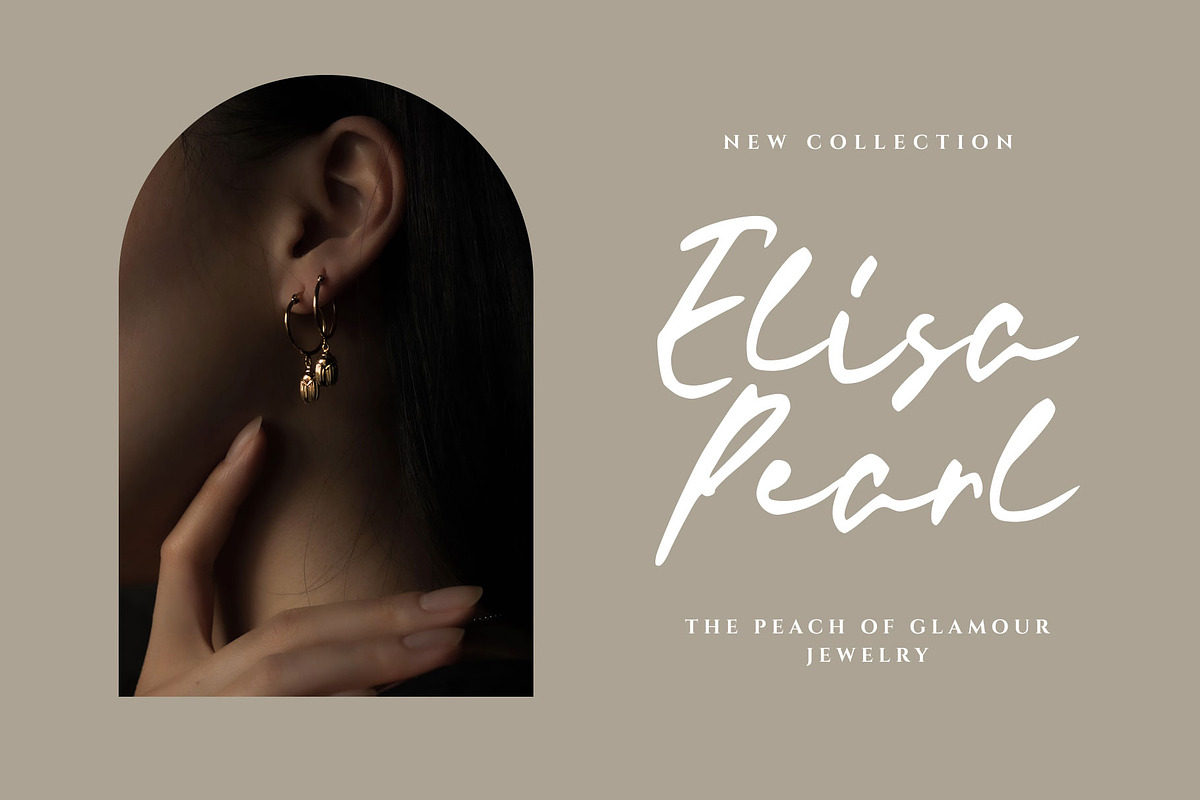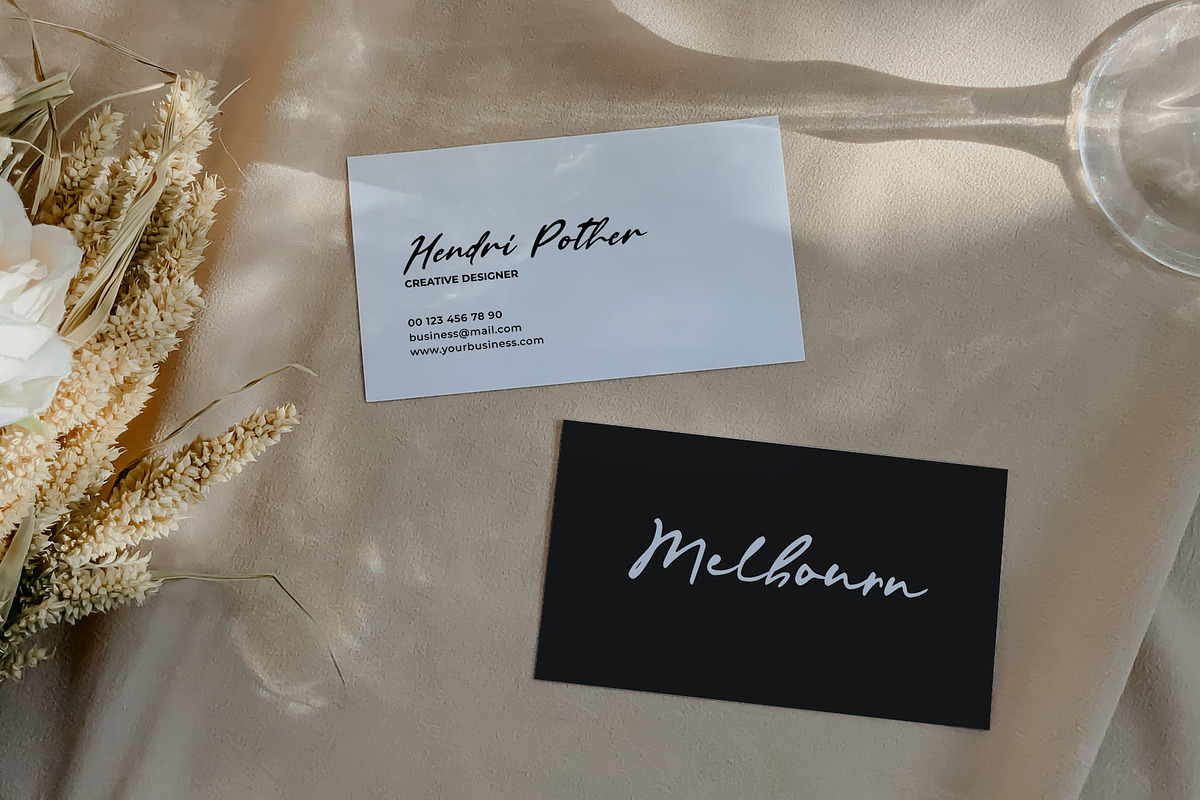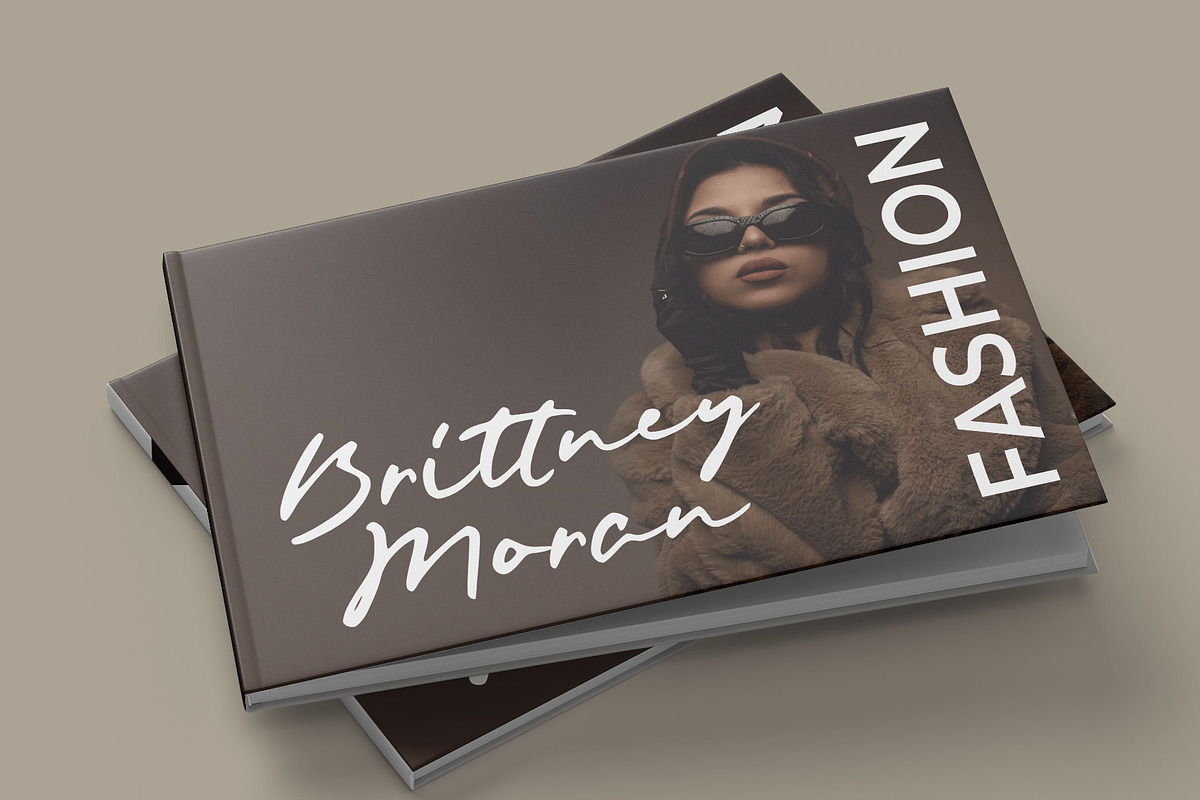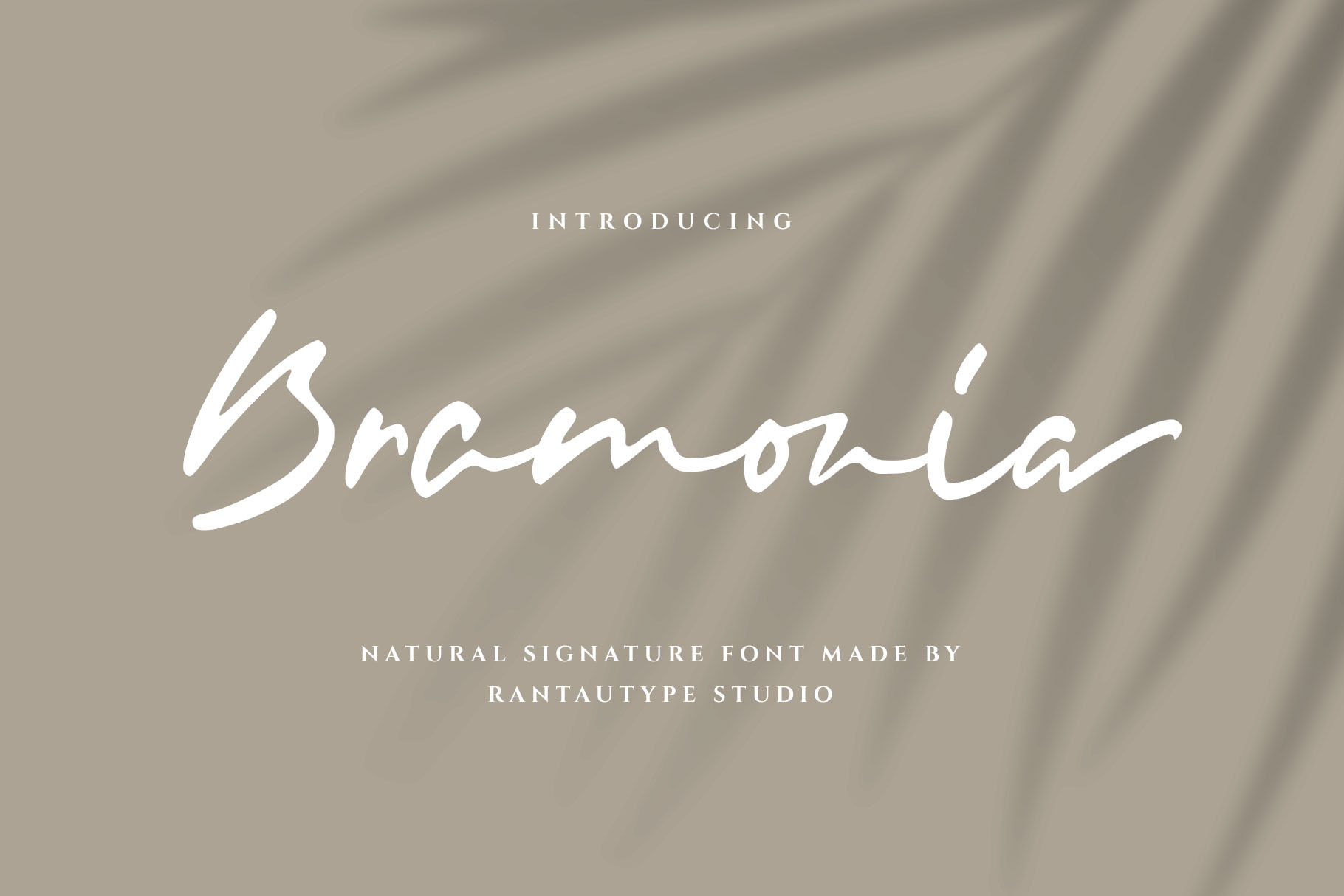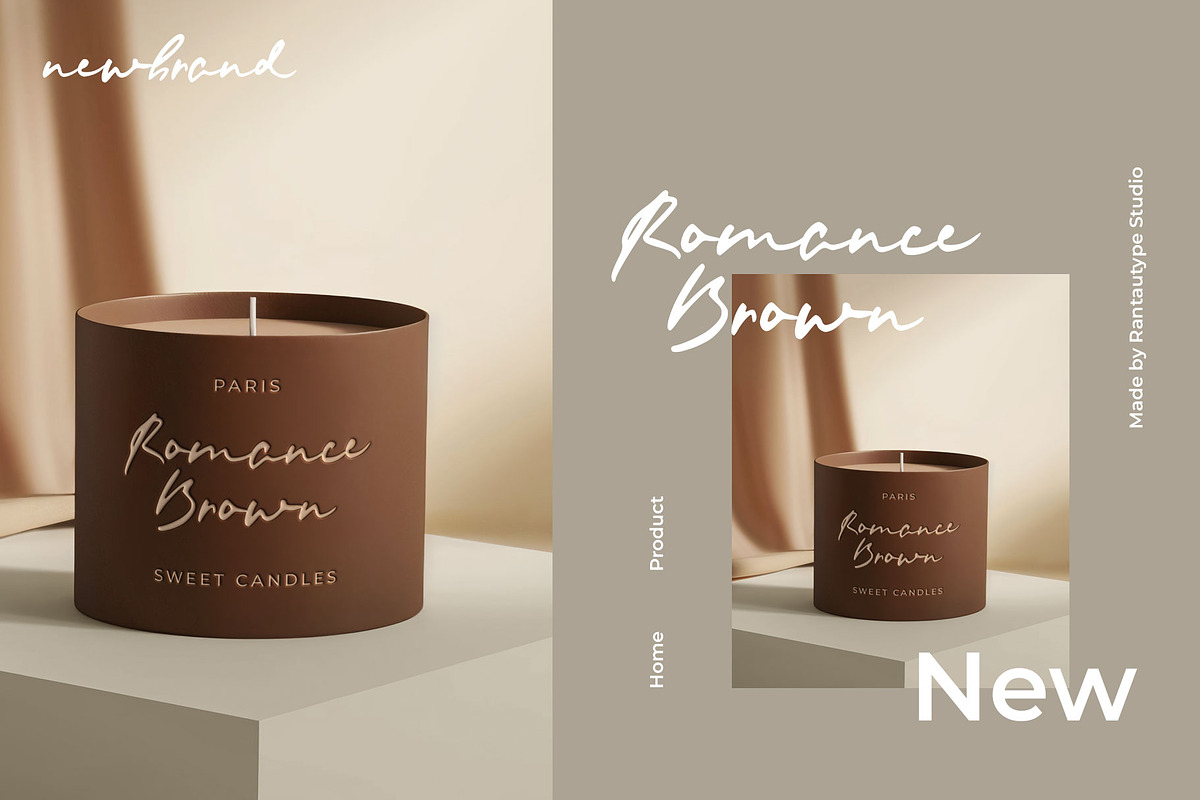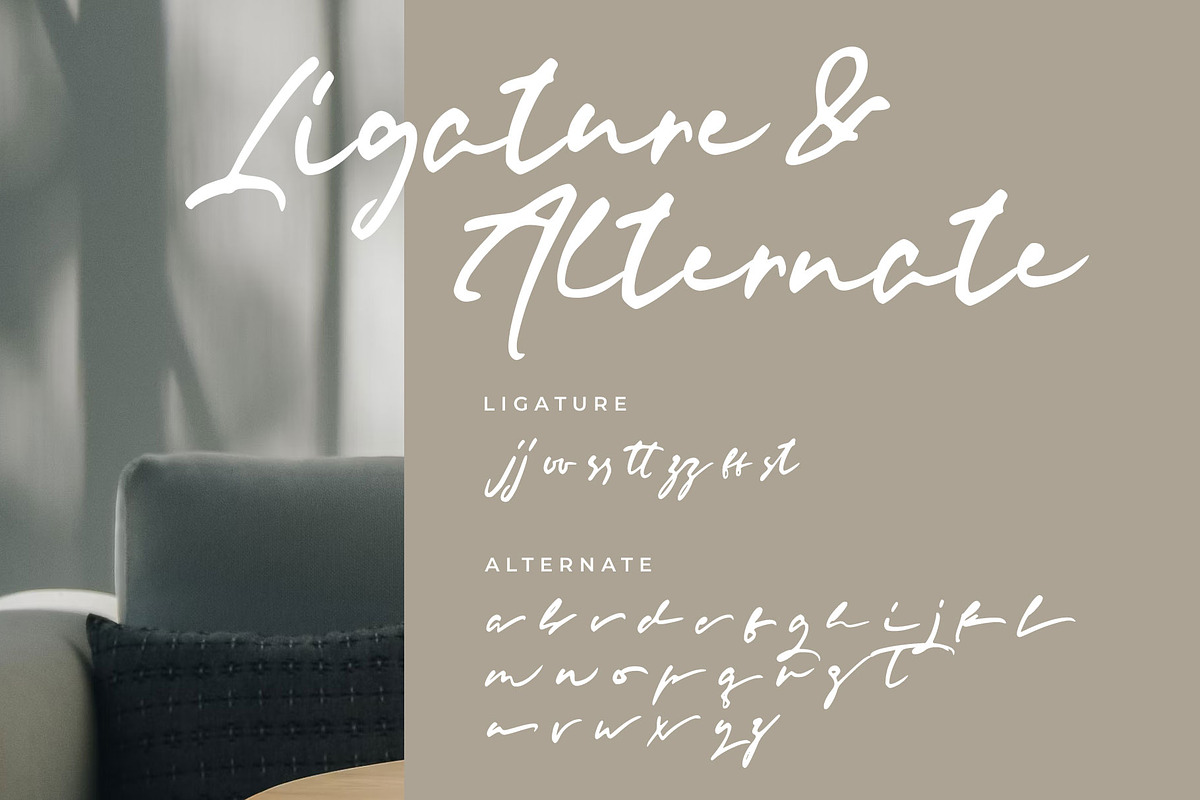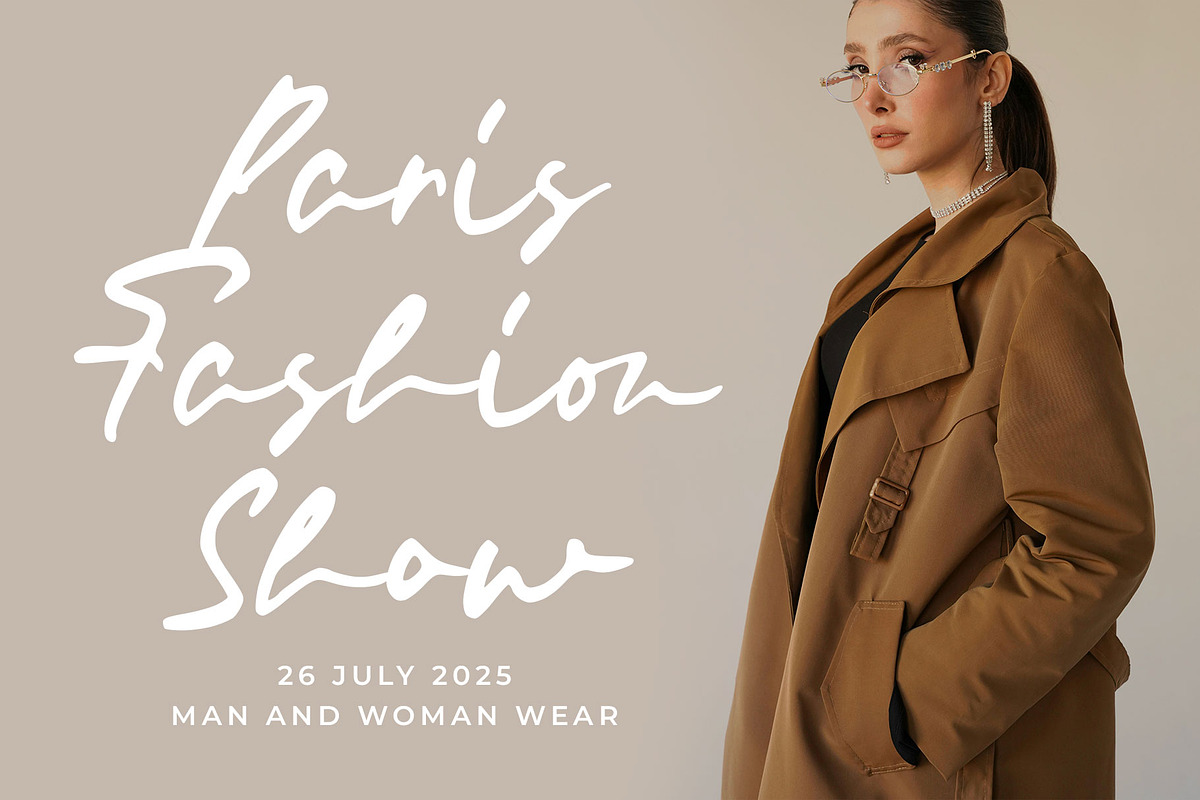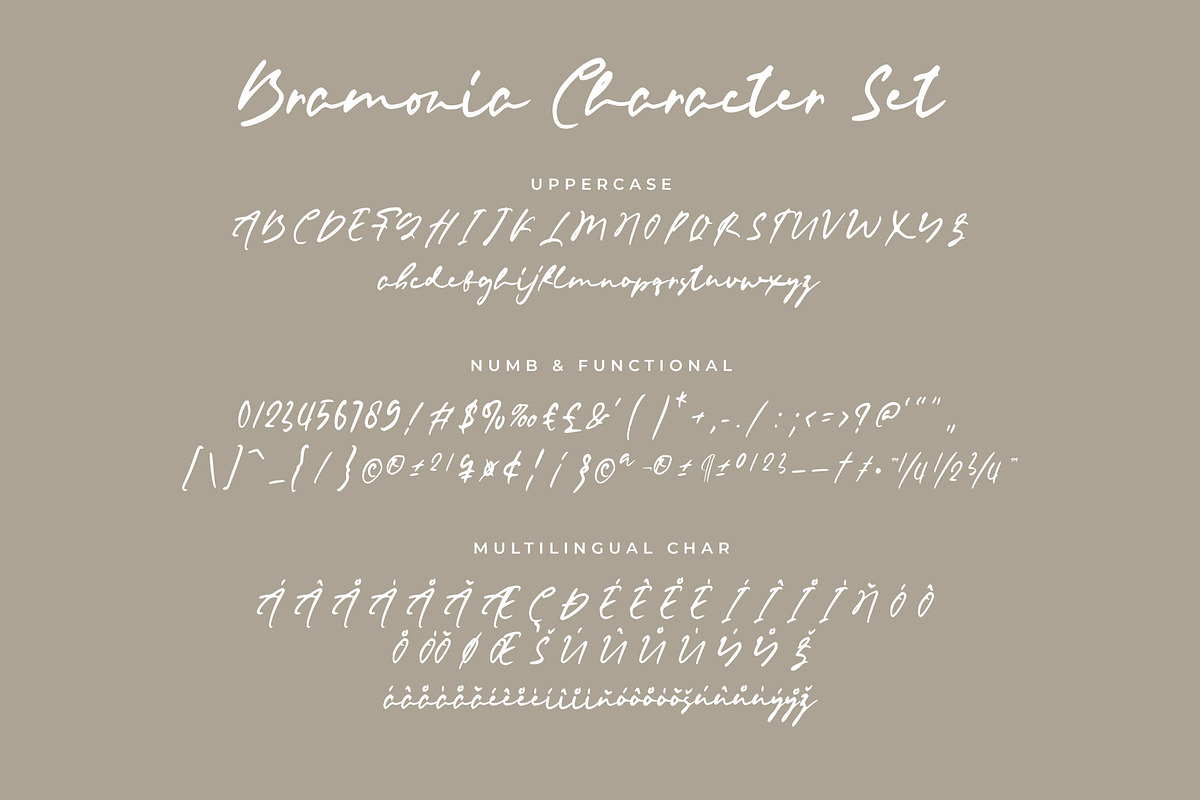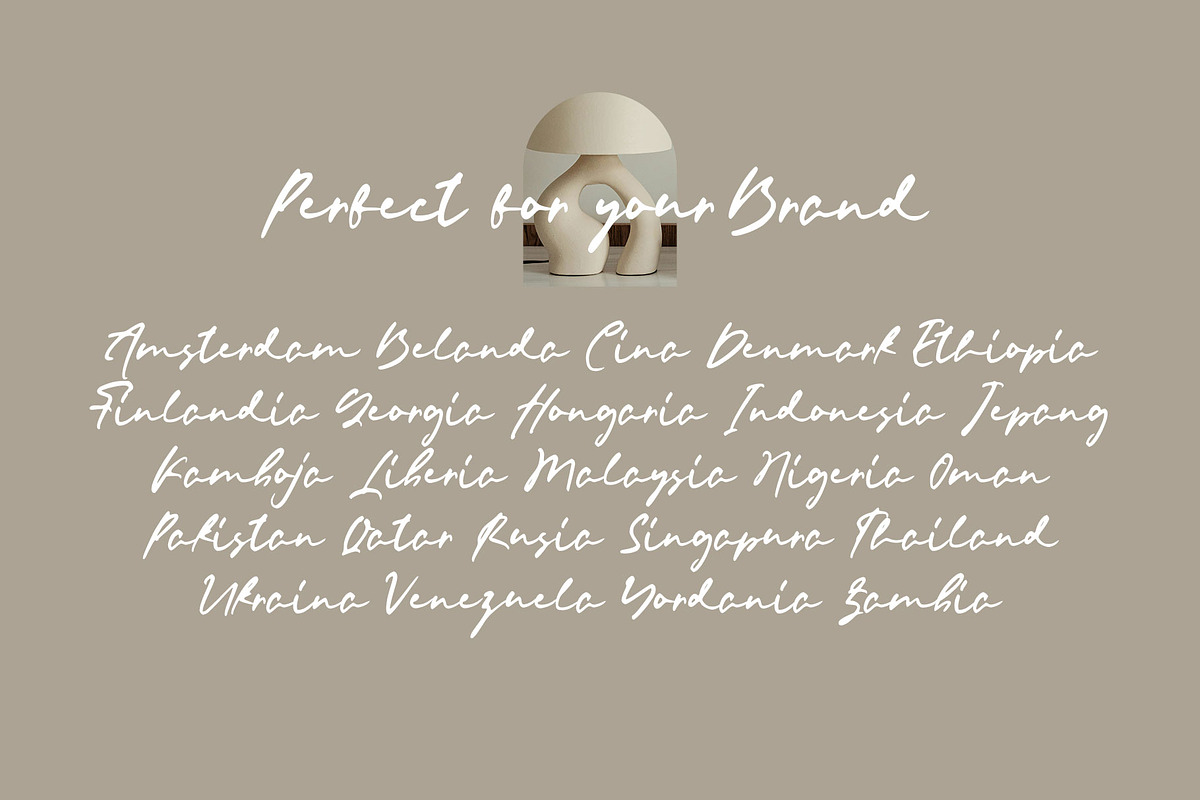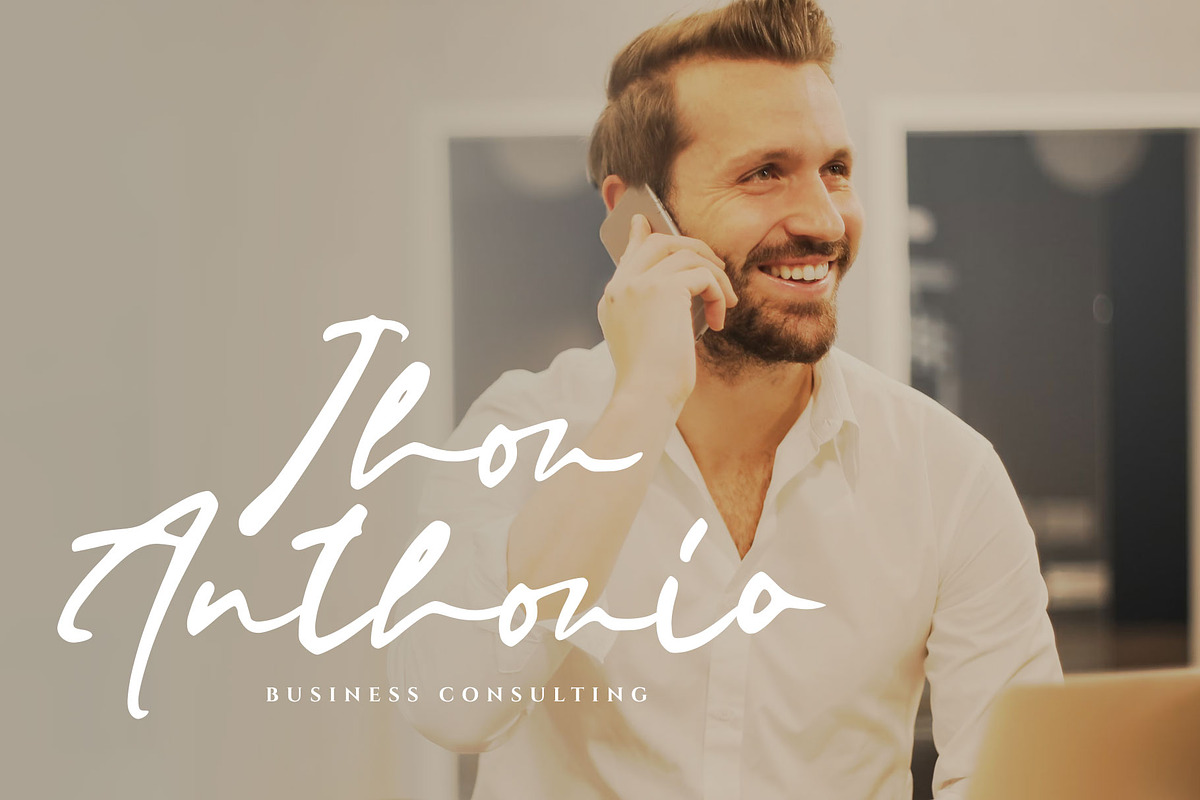
Bramonia Natural Signature Font
Bramonia is natural signature font combines the elegance of handwritten script with the refinement needed for business or branding purposes. Bramonia come with smooth, flowing strokes that mimic authentic handwriting, while maintaining clarity and balance for readability.
Bramonia is a perfectly choice for any creative endeavor, creating, modern, lifestyle design such as logotype, title, cover, branding, invitations, wedding designs, display and magazine, social media posts, advertisements, printed quotes, product packaging, corporate brand, product designs, labels, photography, watermarks, special events and any other project with handwritten feel.
- Standart Glyphs
- Alternate and ligature
Fonts include Multilingual Character for: Afrikaans, Albanian, Asu, Basque, Bemba, Bena, Breton, Chiga, Cornish, Dutch, English, Estonian, Filipino, Finnish, Friulian, Galician, Gusii, Indonesian, Irish, Italian, Kabuverdianu, Kalenjin, Kinyarwanda, Luo, Luxembourgish, Luyia, Machame, North, Oromo, Portuguese, Quechua, Romansh, Rombo, Rundi, Rwa, Samburu, Sango, Sangu, Scottish, Gaelic, Sena, Shambala, Shona, Soga, Somali, Spanish, Swahili, Swedish, Swiss, German.